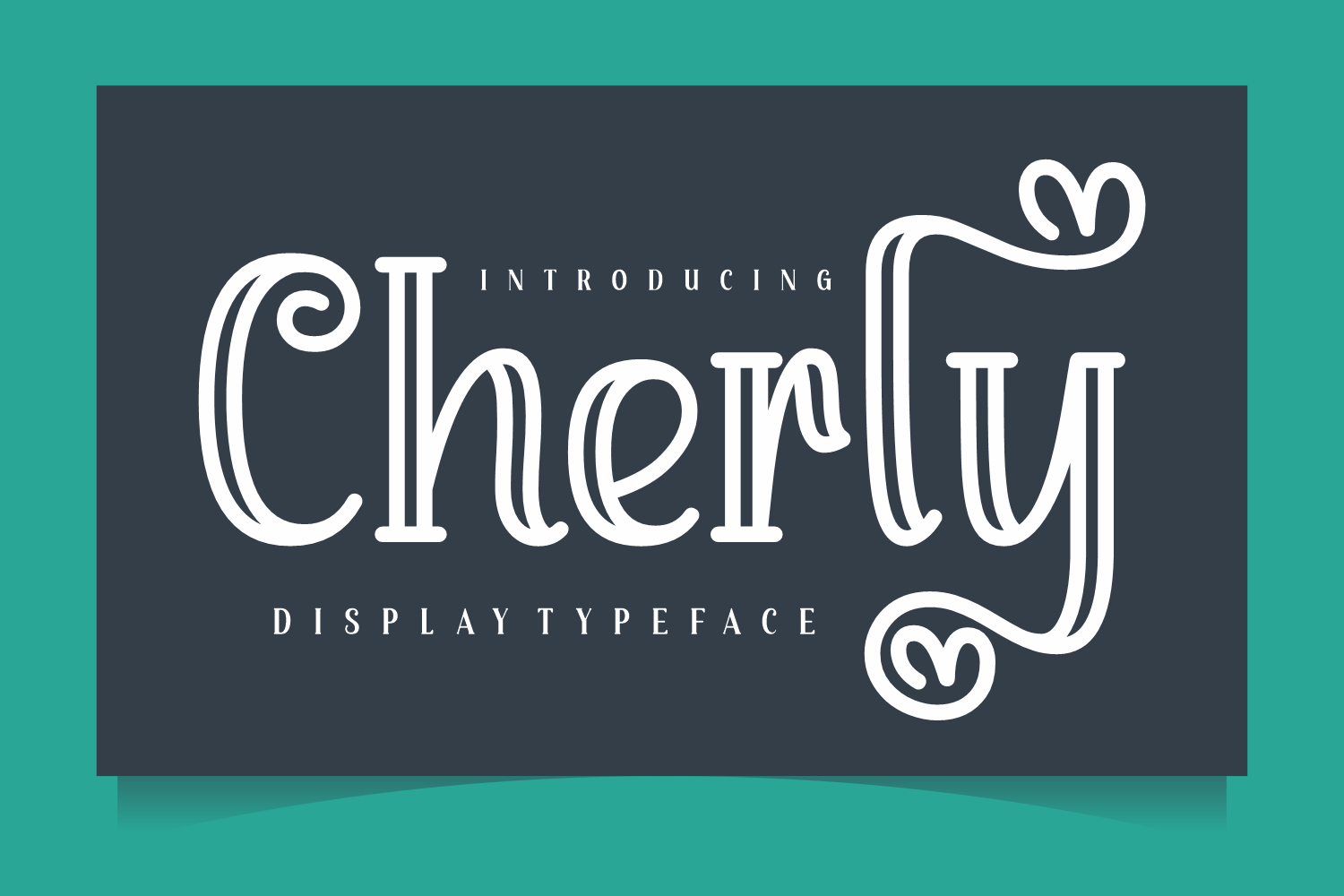
Cherly is a fun, whimsical, and joyful display font. It is defined by smooth curves and is perfect for fashion branding or editorial designs. Add it confidently to your projects, and you will love the results.